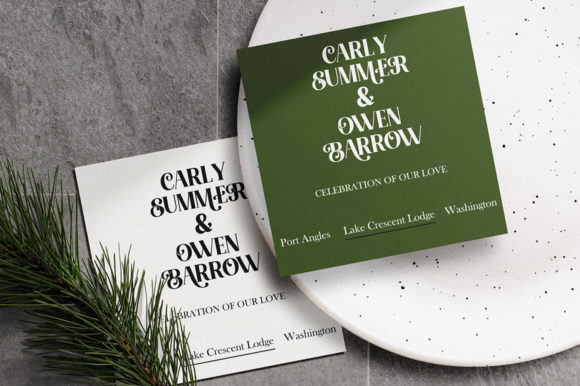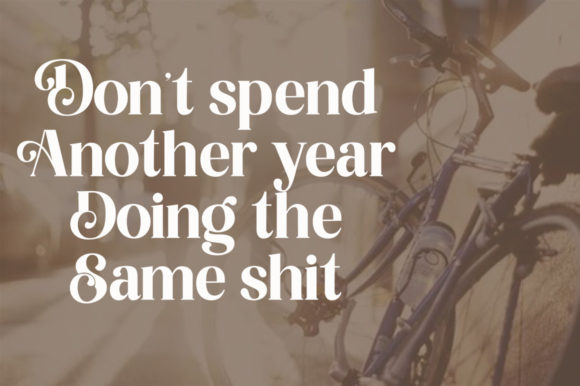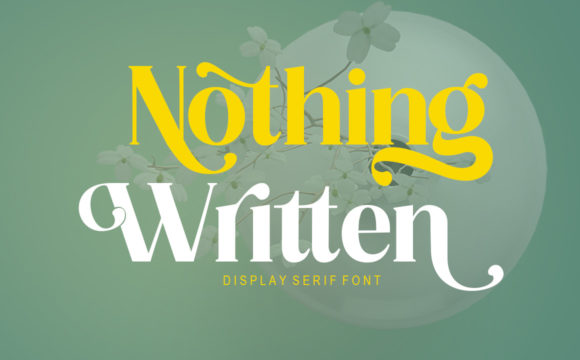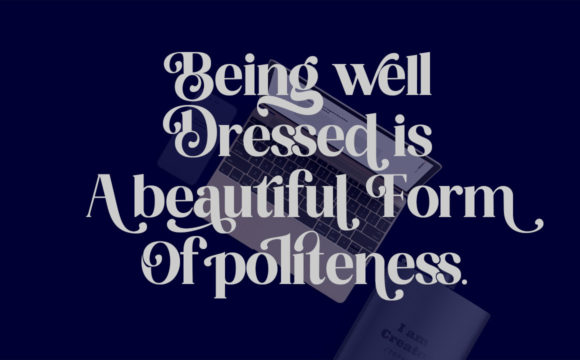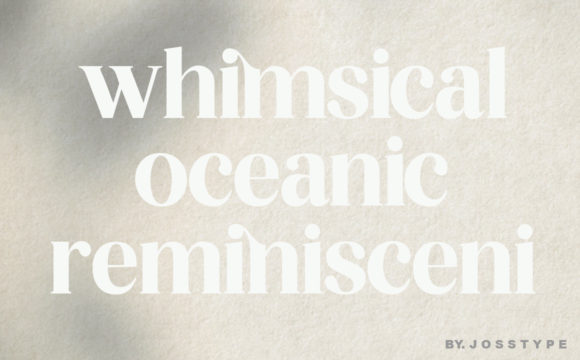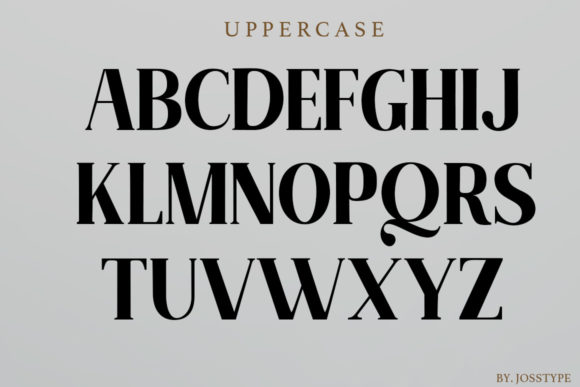
Introduction to Marselind Font
Marselid is a modern, versatile and elegant serif font.
This font is PUA encoded which means you can access all of the glyphs and swashes with ease Add it confidently to your projects, and you will love the results.
Key Features of Marselind Font
Marselind Font offers exceptional quality and versatility, making it a valuable addition to your design toolkit. Whether you’re creating for personal projects or commercial use, Marselind Font delivers professional results.